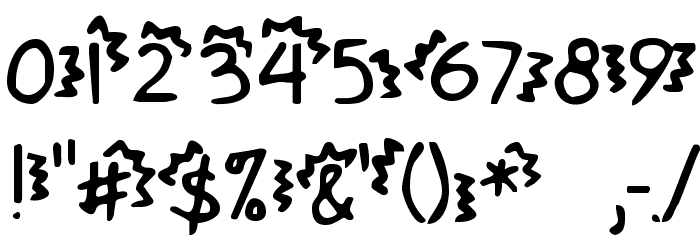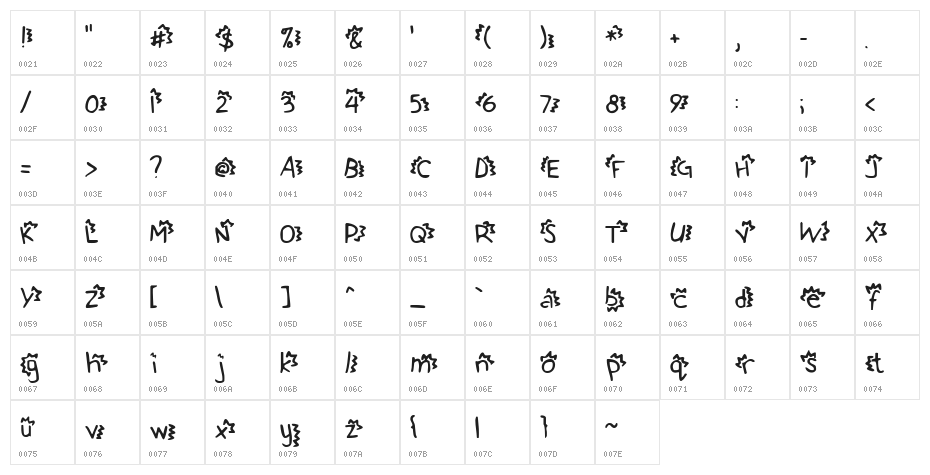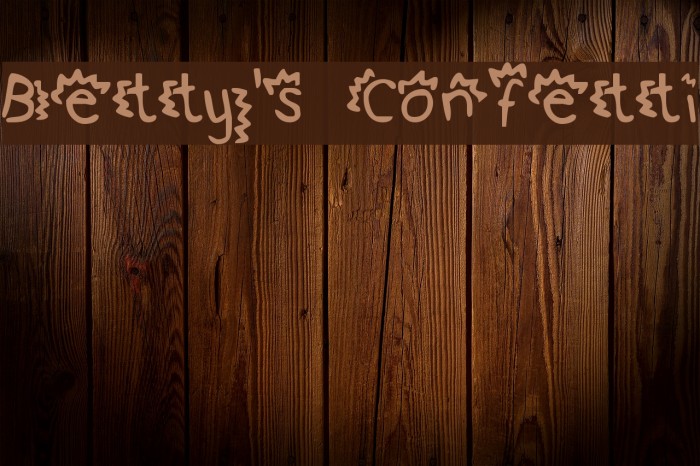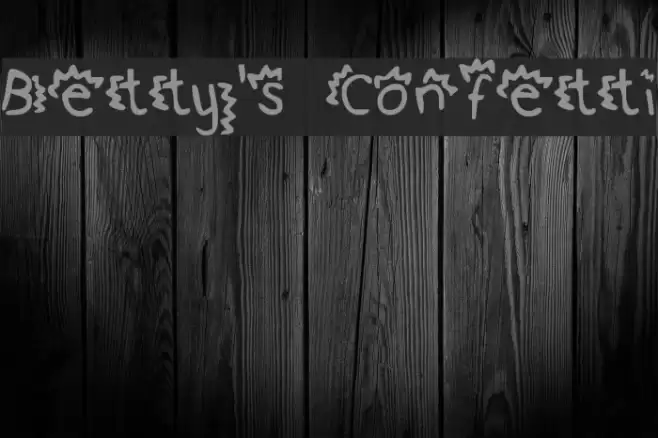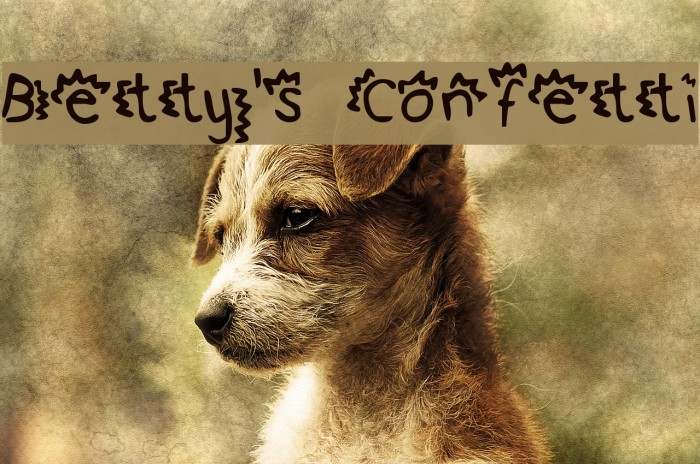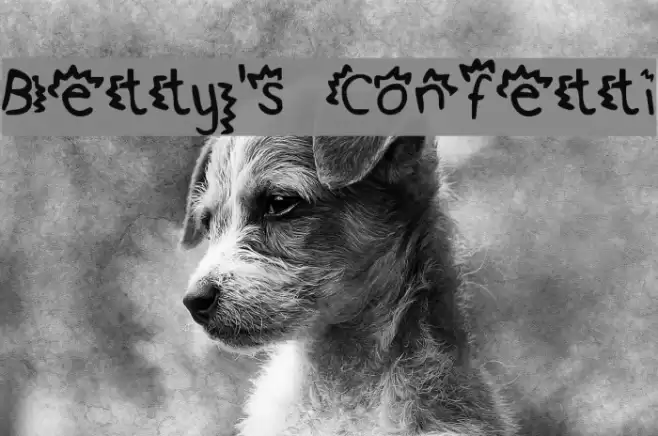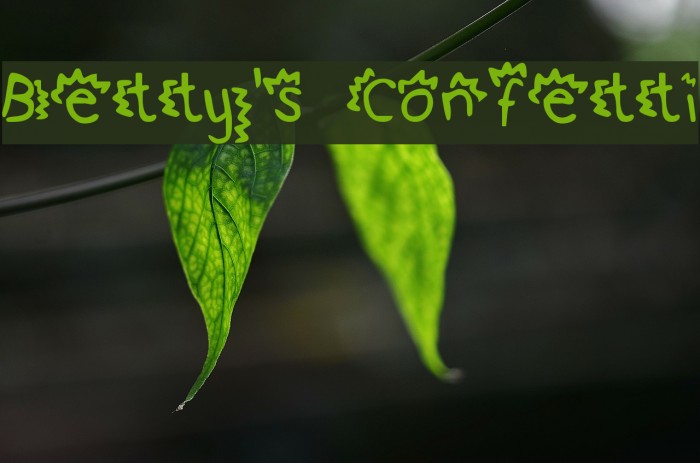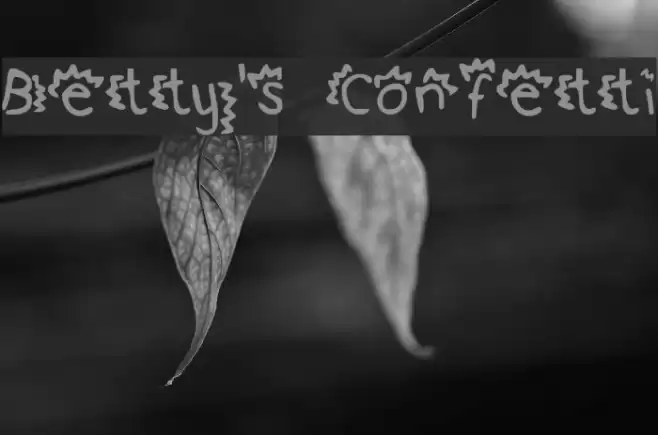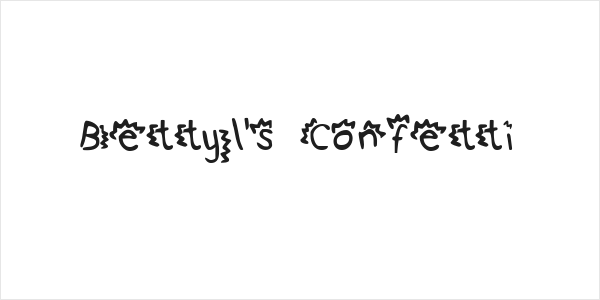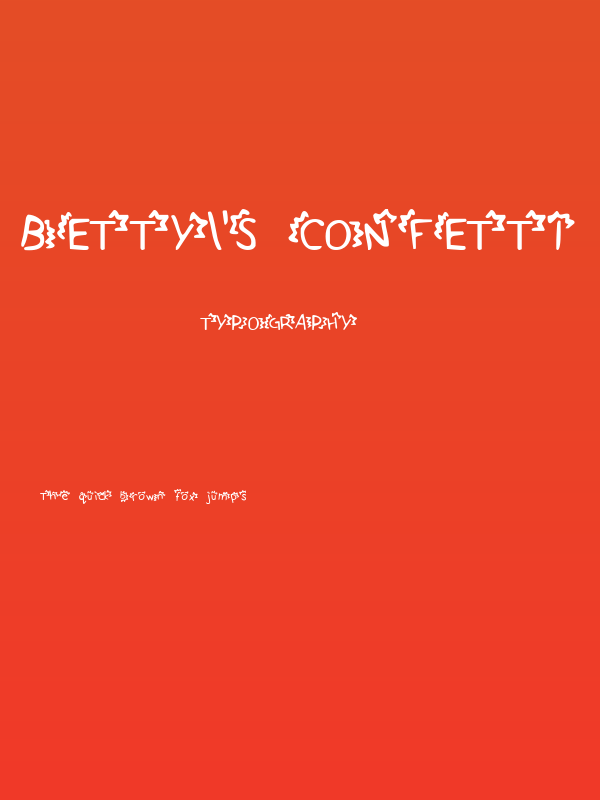
Betty's Confetti Font
Betty's Confetti Description
This playful and whimsical font features a unique zigzag pattern that adds a sense of fun and creativity to each character. The letters are bold and slightly irregular, giving them a hand-drawn appearance. The uppercase and lowercase letters maintain a consistent style, with exaggerated curves and angles that create a lively and dynamic look. Numbers and special characters follow the same design, ensuring a cohesive appearance across all text. This font is perfect for projects that require a touch of humor and personality, making it ideal for children's books, party invitations, and playful branding.
| Overall Style | Whimsical, Playful |
| Proposed Projects | Ideal for children's books, party invitations, playful branding, and creative posters. |